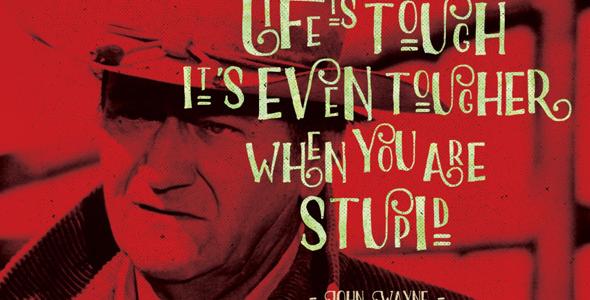
The Boller Typeface
Boller Typeface is a fun display font intended to use in retro and vintage design styles. It is suitable for poster, lettering, greeting card, t-shirt design etc. This font contains with special ornamental uppercase that can be used to create a stand out and attractive message. The Boller Typeface font comes up with 302 glyphs and The alternative characters which can be accessed by using OpenType savvy programs such as Adobe Illustrator and Adobe InDesign. Files Included :